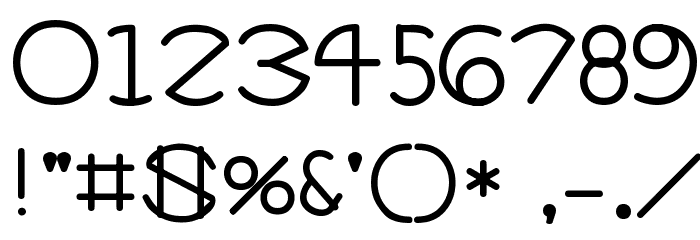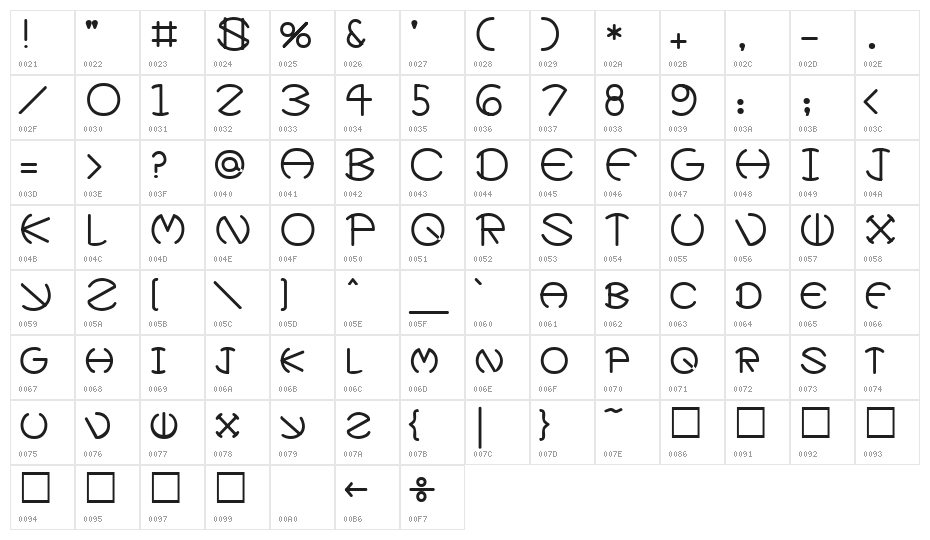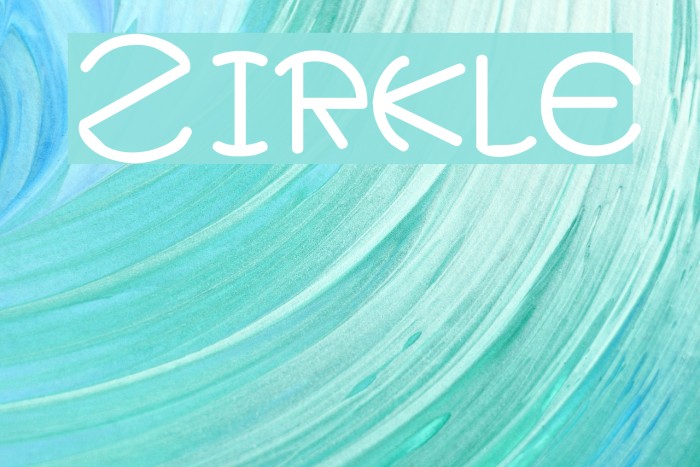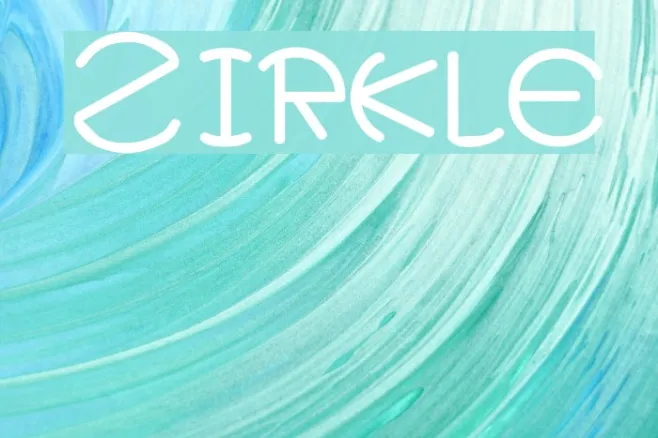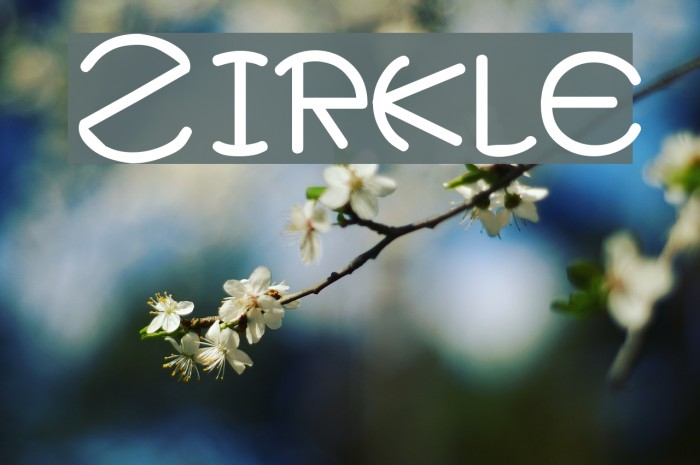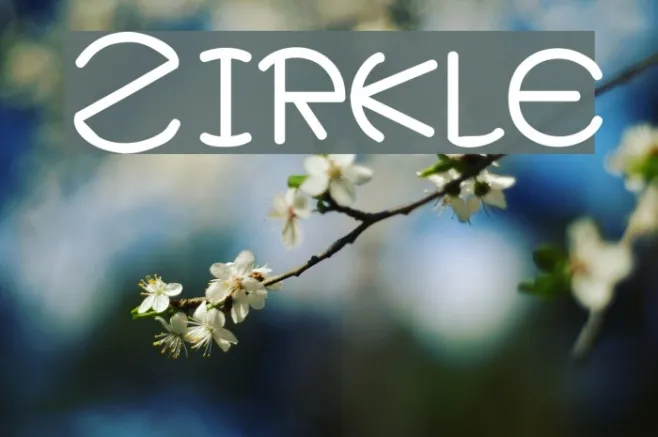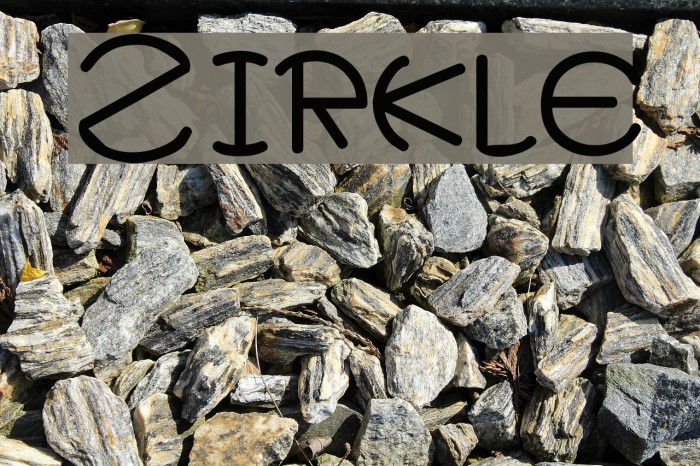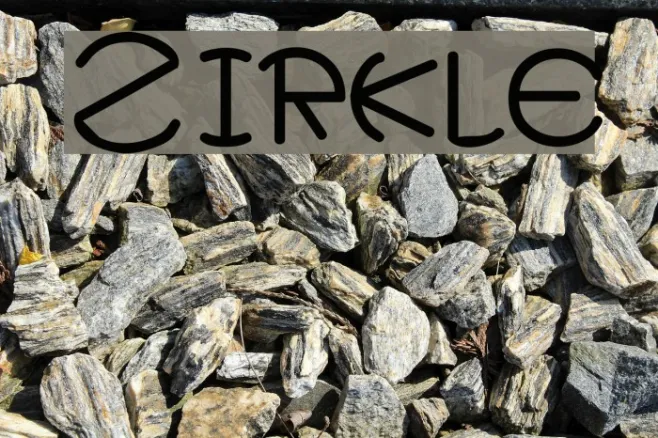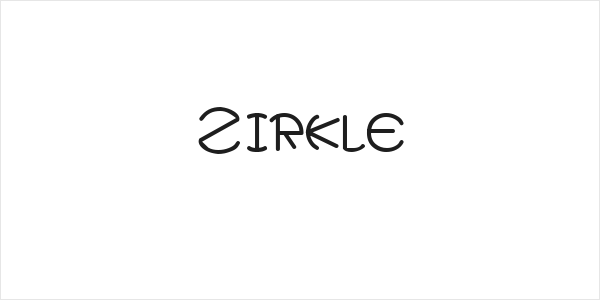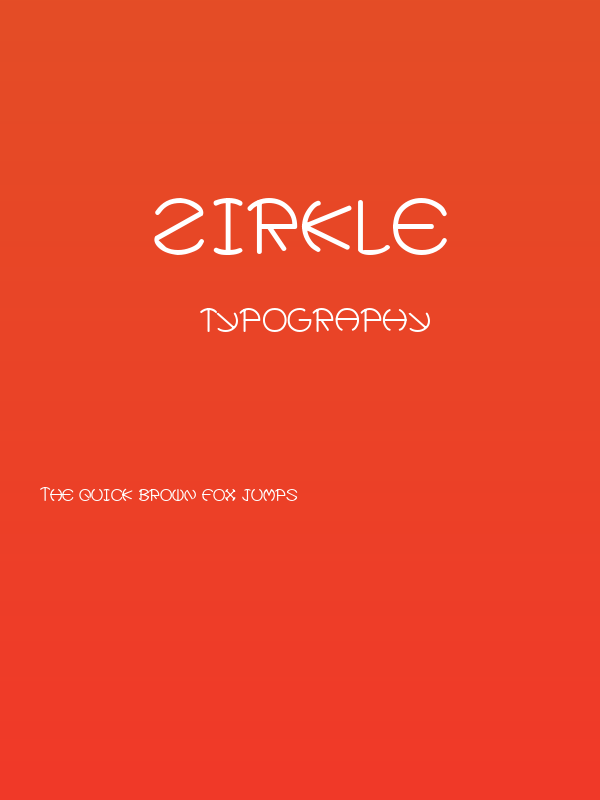
Zirkle Font
Zirkle Description
This font features a unique and modern design with circular elements integrated into each character, creating a futuristic and geometric appearance. The uppercase letters are bold and distinct, with a consistent use of rounded edges and open spaces that give a sense of openness and fluidity. The lowercase letters maintain the same circular motif, ensuring a cohesive look throughout the typeface. Numbers and special characters are designed to match the overall style, with a playful yet sophisticated touch. The font's design is both eye-catching and versatile, suitable for a variety of creative applications.
| Proposed Projects | Ideal for branding, logos, posters, and digital media projects that require a modern and distinctive look. |